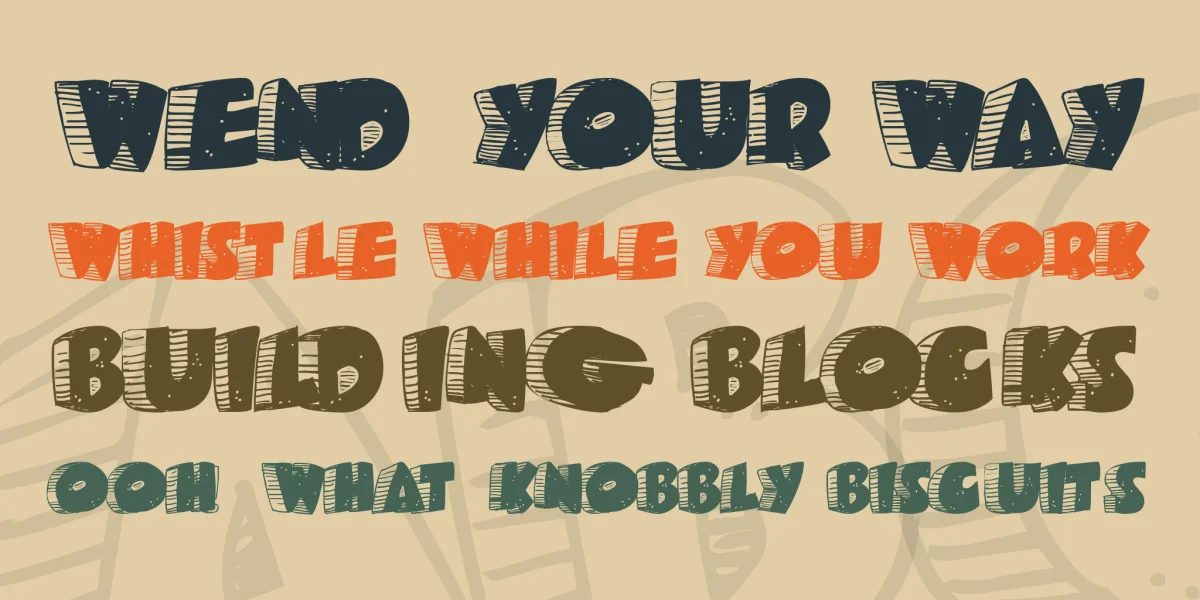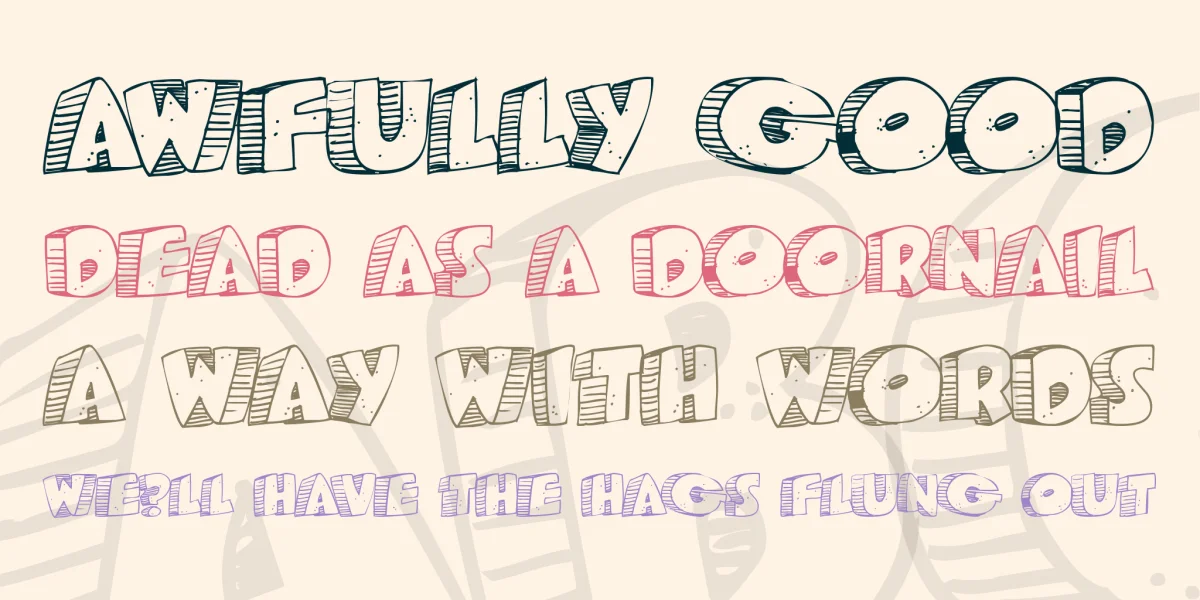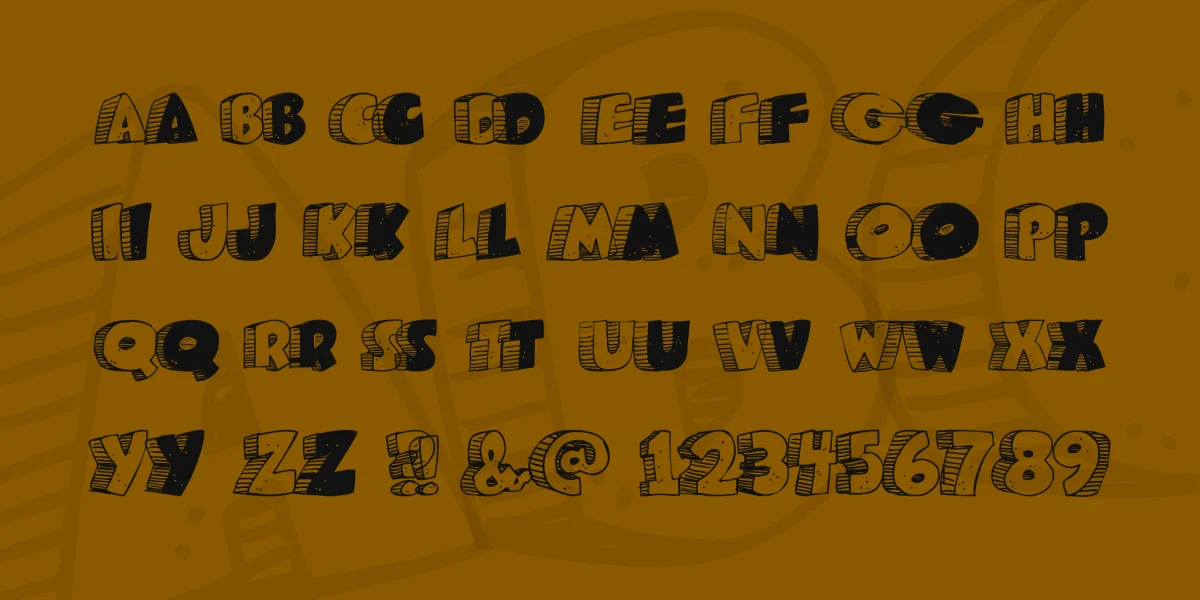
Well, what do you think? It is cavey. People keep e-mailing me telling me to make more retro-style fonts. So I thought I'd take it all the way back...to the dino era. Pretty retro, huh?